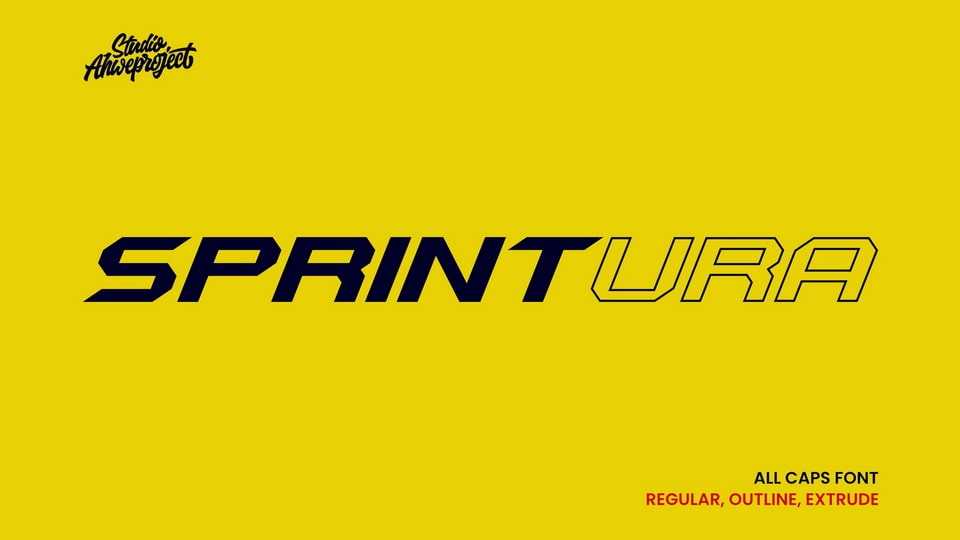
Download Sprintura font, an all-caps typeface featuring bold and dynamic characters, perfect for designs that aim to convey a sense of speed and modernity.